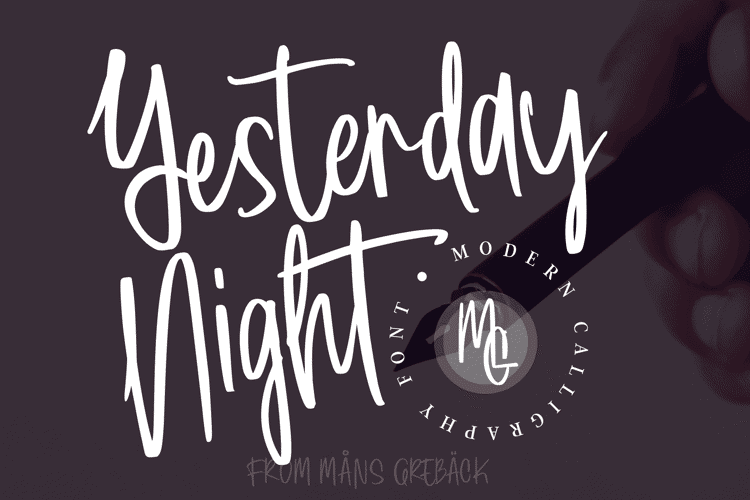
Yesterday Night Font
Yesterday Night is a lively handwriting font that captures the essence of an active and cute brush style.
The font family's hand-brushed appearance brings an authentic, personal touch to your creative work, making it feel warm and approachable.